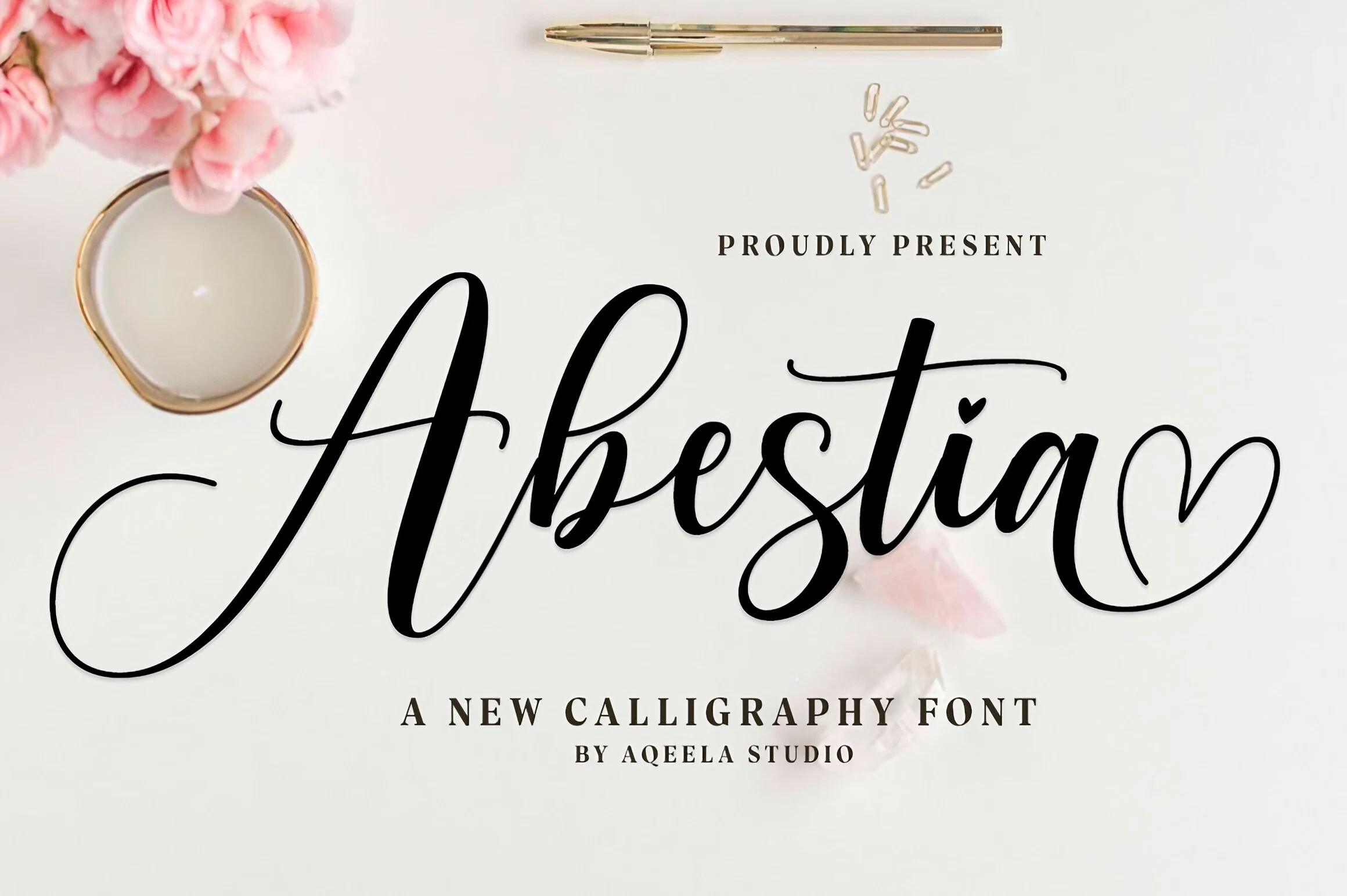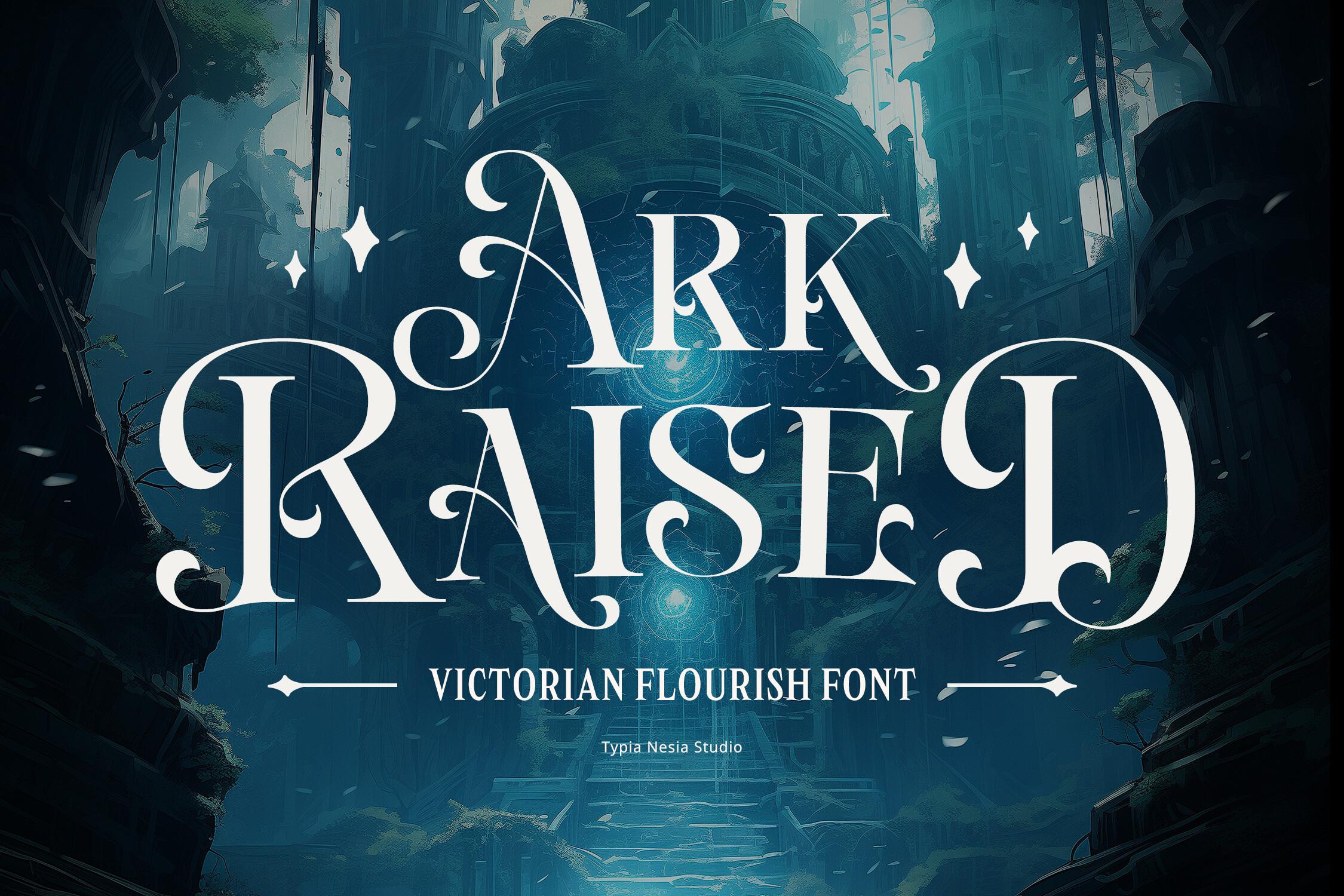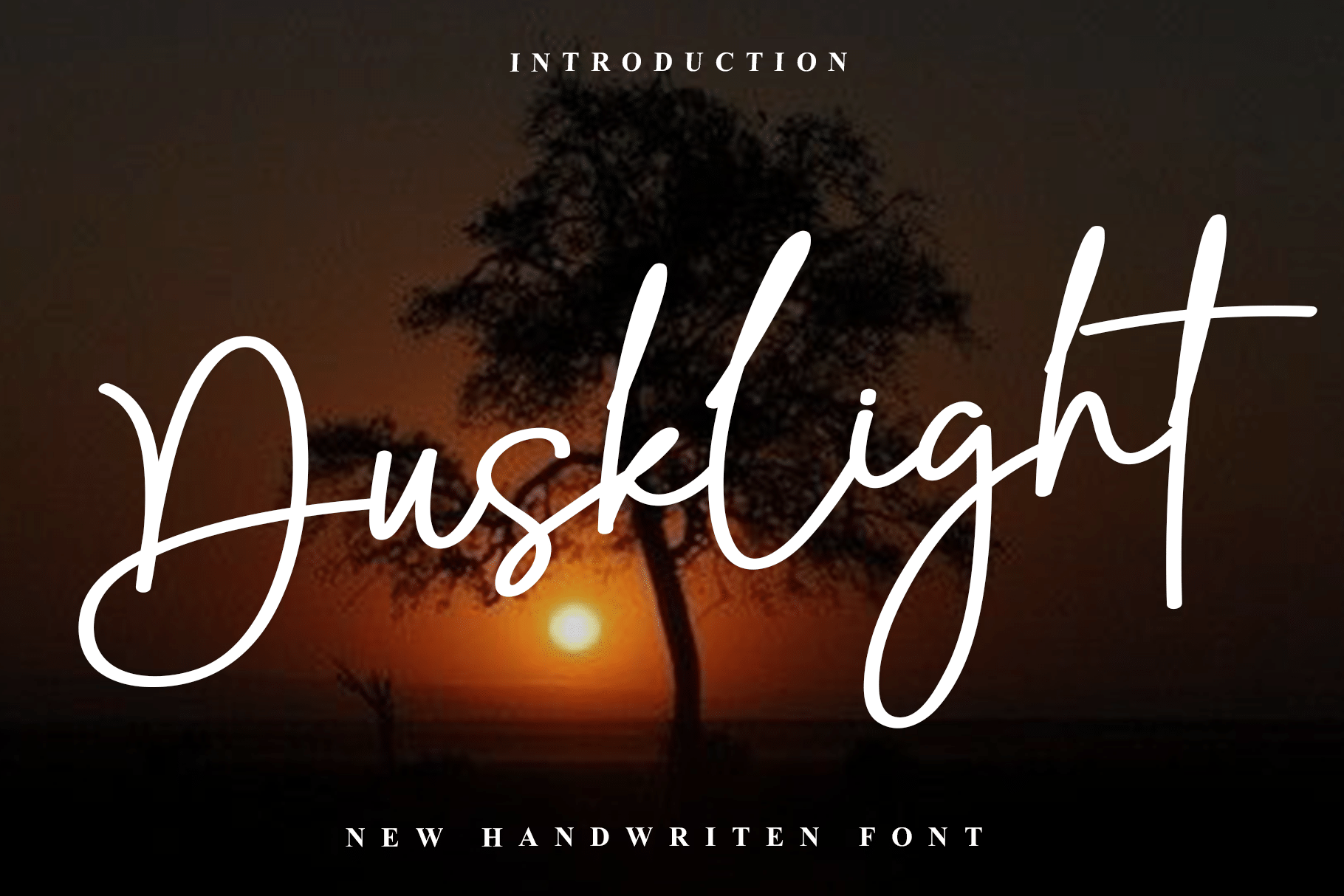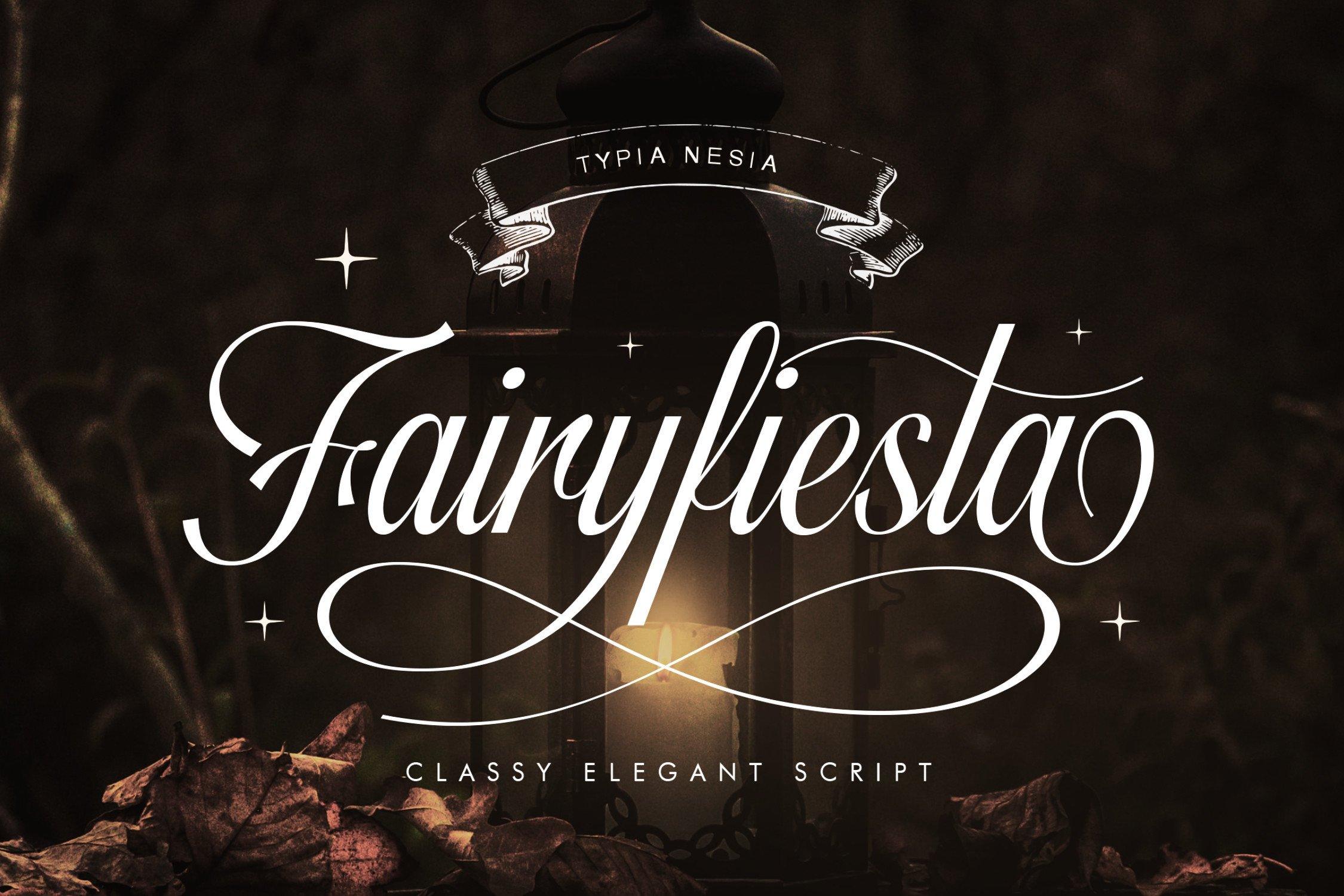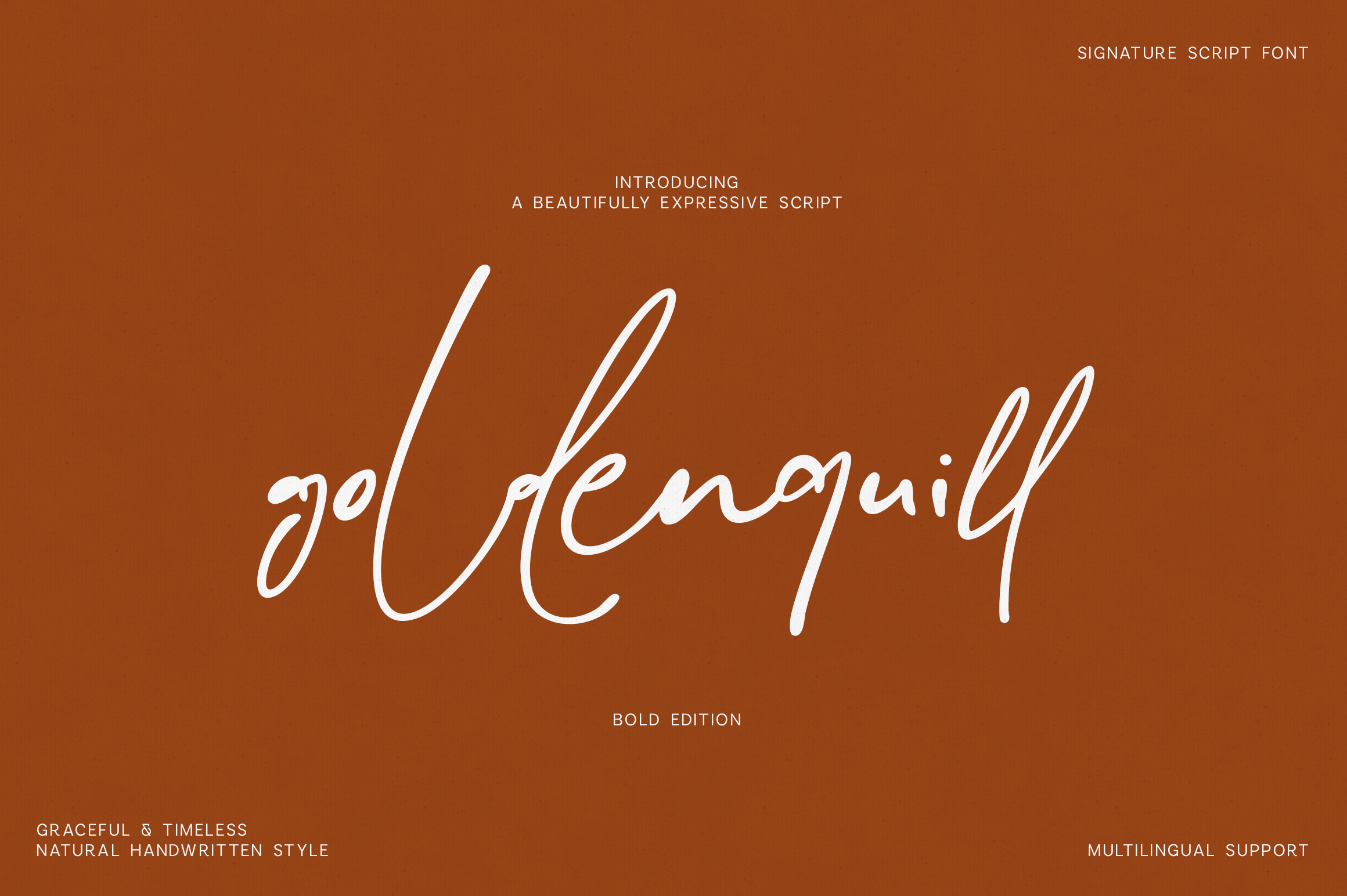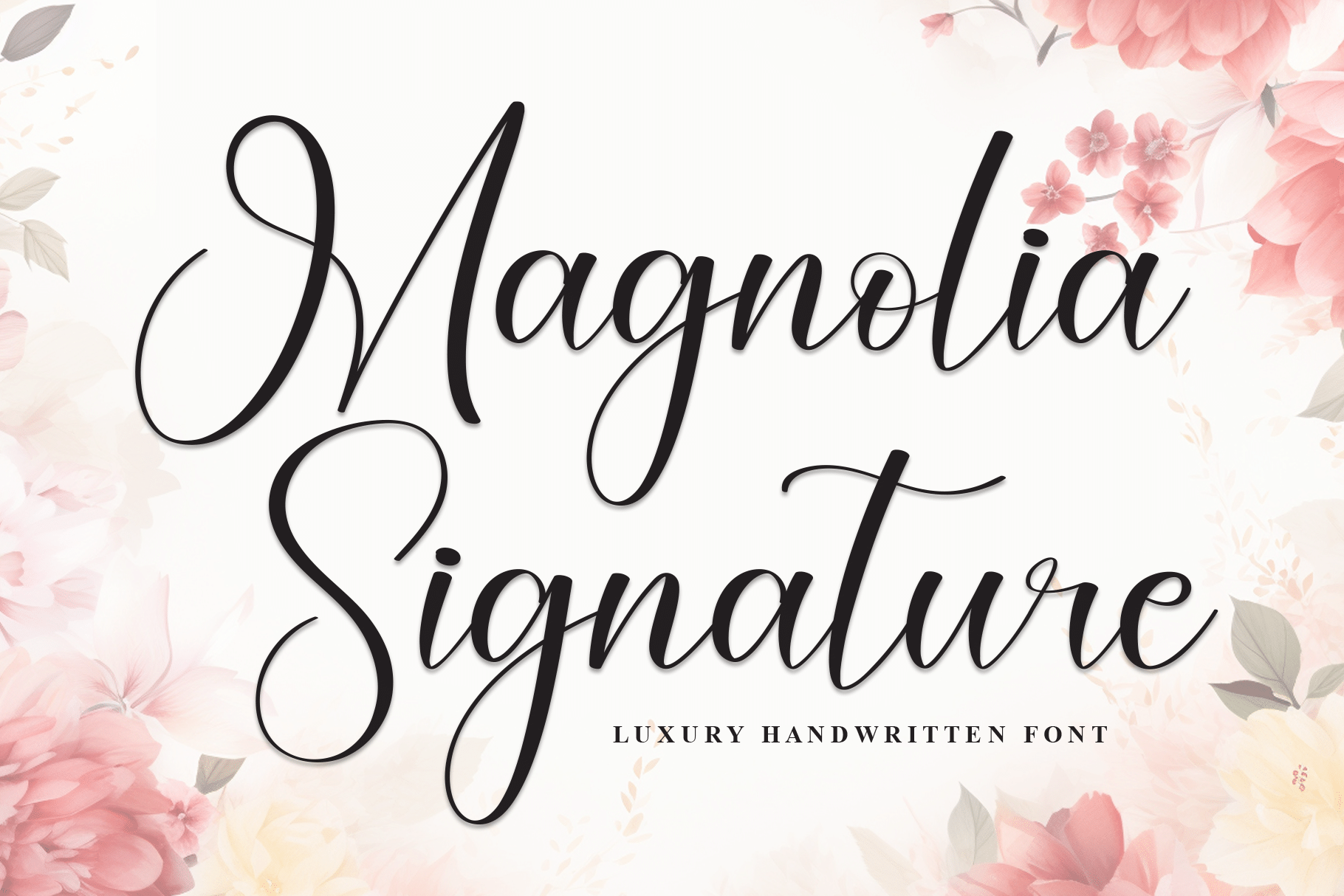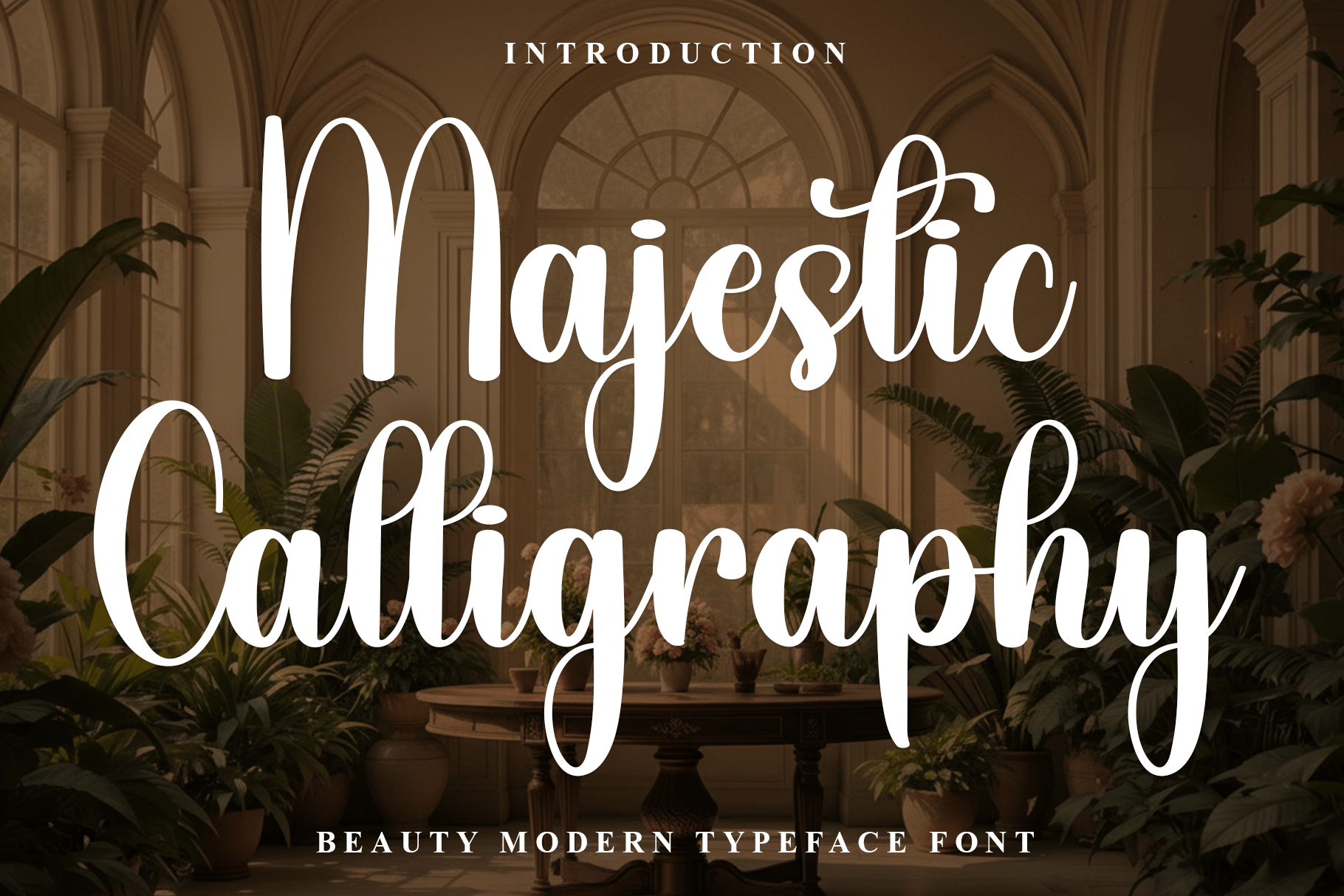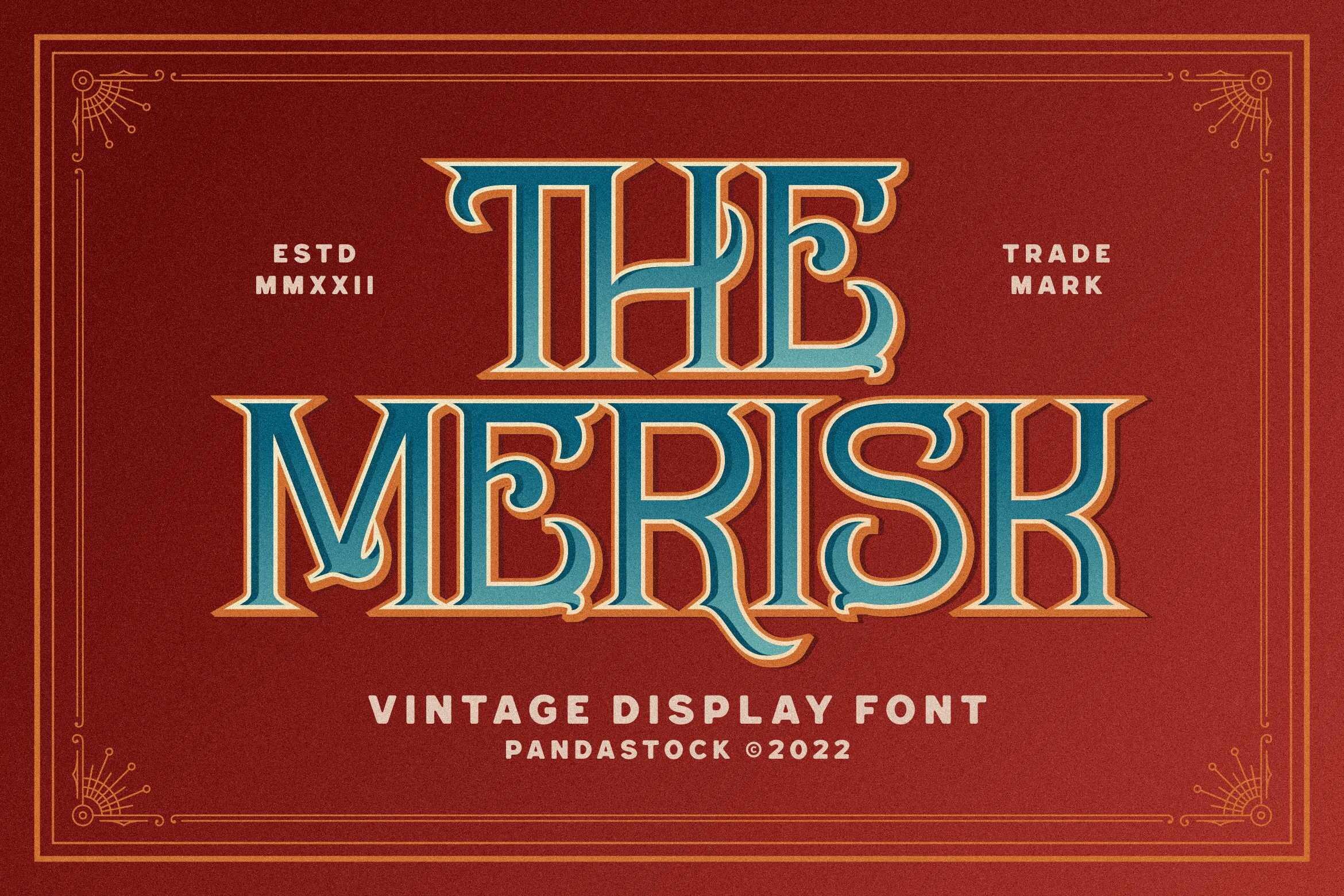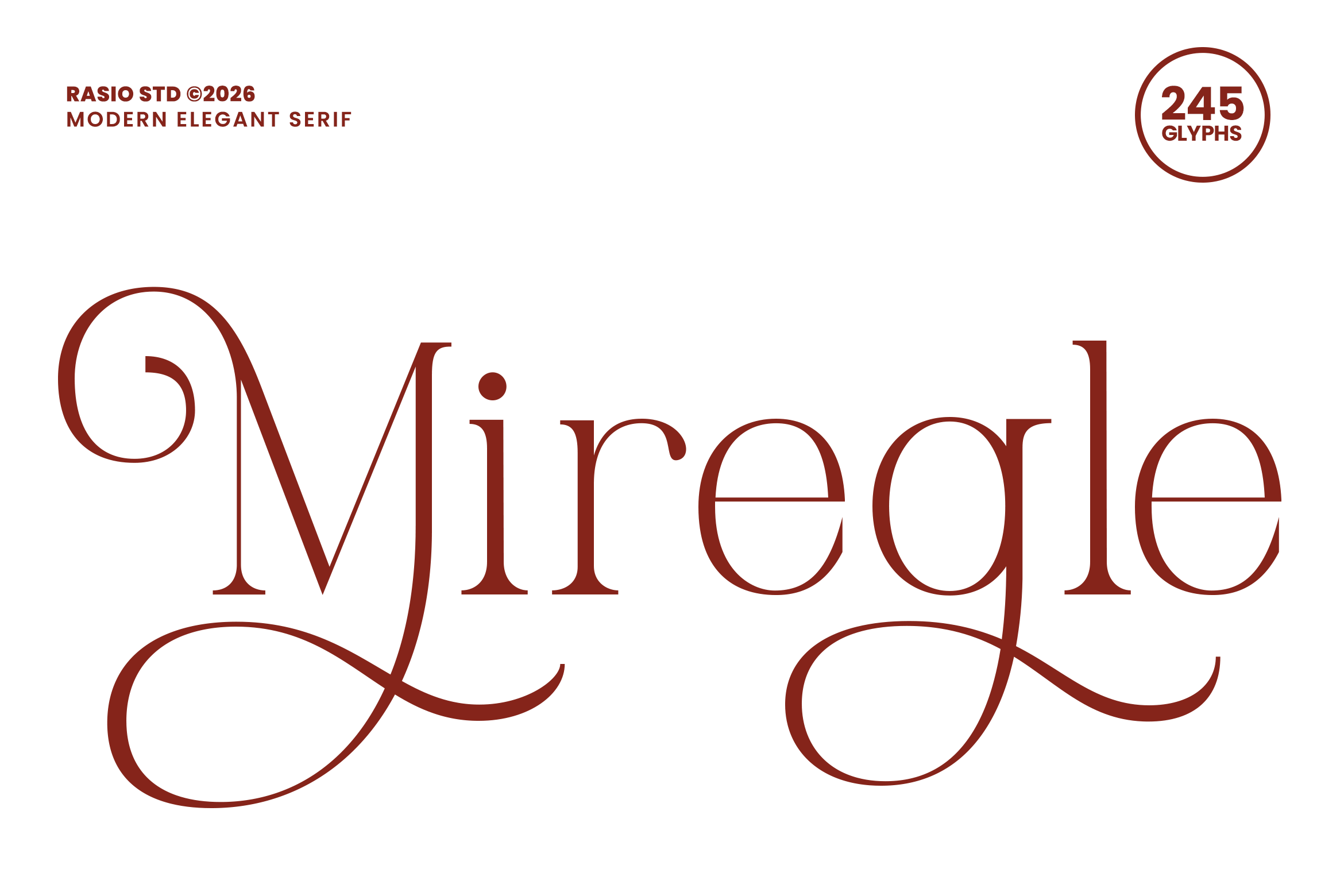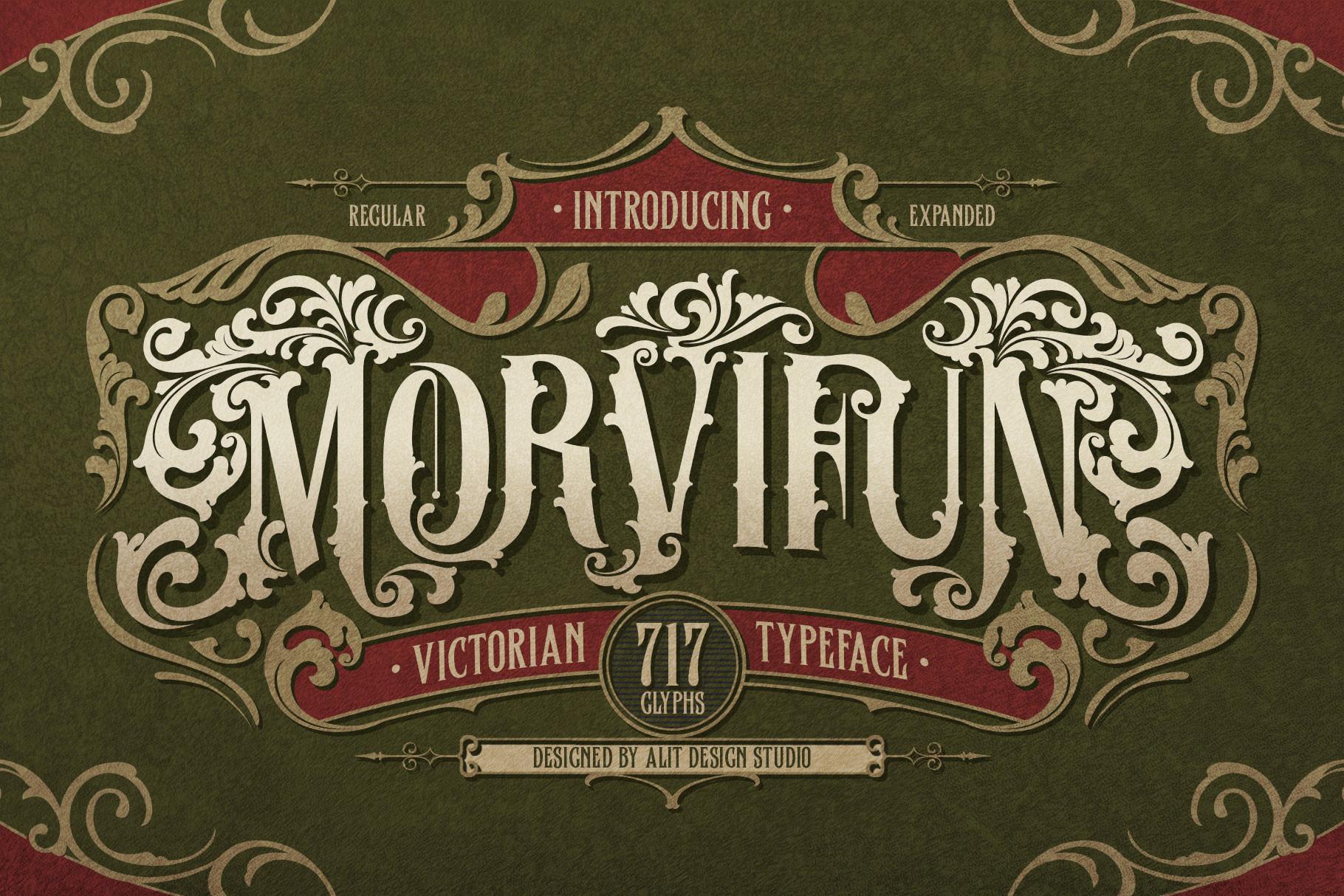
30 Fancy Fonts for lettering, calligraphy and cursive on an emerald velvet flat lay with gold filigree, a dip pen and burgundy wax seals
Fancy Font: 30 Lettering, Calligraphy and Cursive Styles for Crafters and Small Brands
A fancy font can mean very different things: an ornate Victorian title, a royal calligraphy script with crowns, a signature-style cursive or a set of decorative numbers for a wedding date. This list covers all four, so you can find the kind of fancy that fits your project instead of scrolling through one style.
Every font here was picked from Creative Fabrica and is shown with its own preview. They are grouped into fancy lettering fonts, fancy calligraphy fonts, fancy cursive fonts and fancy numbers fonts, with notes on where the flourishes help and where they get in the way.
Fancy Lettering Fonts
Fancy does not have to mean cursive. These are decorative fonts with separate letters: ornate Victorian display faces with curls and spurs, and elegant serifs with long swashes. They stay readable in a logo or a title while still looking dressed up.
1. Lettichossa Font
by Keristyper
Best For: vintage labels, book titles, shop logos
Lettichossa Font is a vintage decorative serif with ornamental spurs and curled terminals. The preview sets it in cream capitals with a dark outline on a sage panel inside a thin ornamental frame, labelled as vintage decorative. The author describes it as inspired by Victorian and ornamental typography and suggests logos, social media, movie titles and book titles.
It is one of the calmer Victorian fonts in this group, so it still reads well in a two-line logo or a product label. Use it in capitals for the name and keep secondary text in a plain serif.
Lettichossa Font by Keristyper, Victorian fancy lettering font preview
2. Merisk Font
by imoodev
Best For: apothecary labels, antique shop signs, poster titles
Merisk Font is a narrow Victorian display with sharp serifs and deep spirals in the letters. The preview sets “The Merisk” in teal with gold edges on dark red, like an old trade label. The author compares its feel to an antique shop sign, a turn-of-the-century show poster or a fantasy book title.
The narrow proportions let long names fit on a small label, and the spirals give it that hand-tooled look. It works best large, on candle, soap or tea packaging with a vintage theme.
Merisk Font by imoodev, ornate Victorian font preview
3. Ark Raised Font
by Typia Nesia
Best For: fantasy book covers, game titles, luxury packaging
Ark Raised Font is an elaborate Victorian serif with long ornamental swashes on the capitals. The preview sets “Ark Raised” in white over a dark, misty fantasy scene, labelled as a Victorian flourish font. The author describes classic grandeur with a touch of dark fantasy and suggests novel covers and video game branding.
The swashes are dramatic, so use them on the first and last letters and leave the middle clean. It is a strong choice for book covers and title cards, and too busy for small text.
Ark Raised Font by Typia Nesia, Victorian swash font preview
4. Glorivane Victorian Display Font
by madeDeduk
Best For: premium branding, whiskey and wine labels, event posters
Glorivane Victorian Display Font has dramatic capitals with artistic swashes and rich ornamentation. The preview writes “Glorivane” in pale grey over a black background next to a gothic spire. The author mentions multilingual support, alternates and ligatures, and suggests premium branding and packaging labels.
Dark backgrounds, as in the preview, show off the ornament best. Pair it with a clean serif for the details and let one Glorivane word carry the whole design.
Glorivane Victorian Display Font by madeDeduk, Victorian display font preview
5. Morvifun Font
by Alit Design
Best For: vintage badges, brewery labels, circus posters
Morvifun Font is a heavily ornamented Victorian typeface with decorative fills and flourishes inside and around the letters. The preview sets it in cream and gold inside an ornate green and red badge, and notes 717 glyphs. The author mentions PUA Unicode support for reaching the extra characters.
Test It on the Real Word
Type the actual name, date or title you need in three fonts from this list, print it at its real size and look at it from a step back. The fancy font that still reads clearly is the one to keep. Save the rest for the next project.